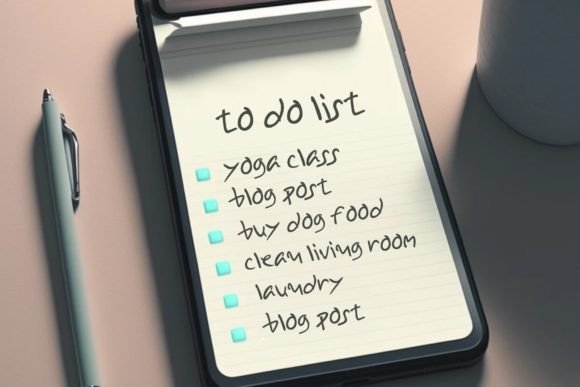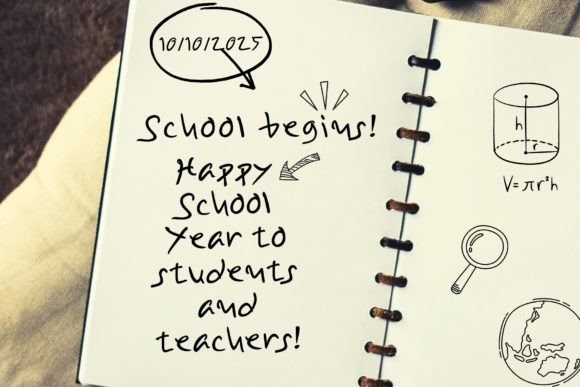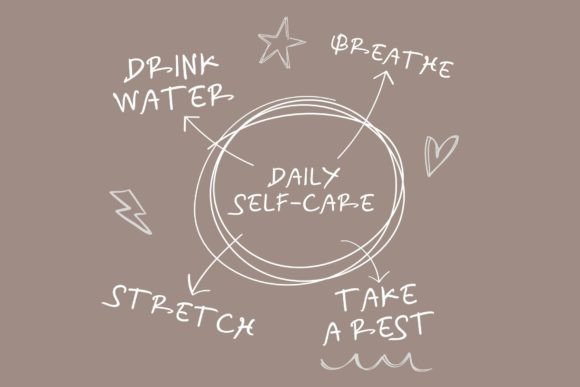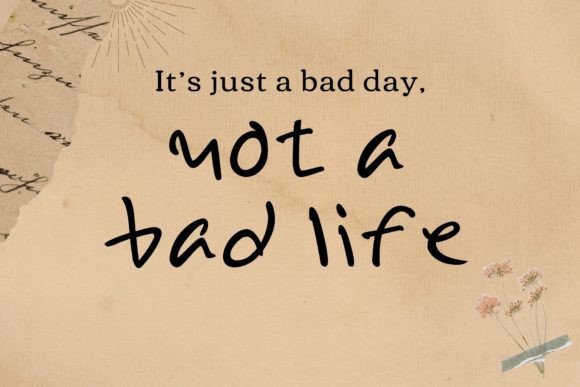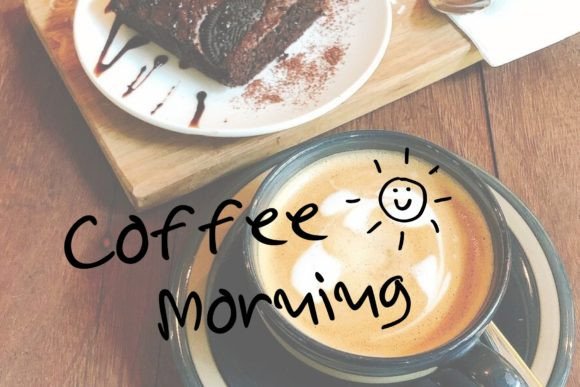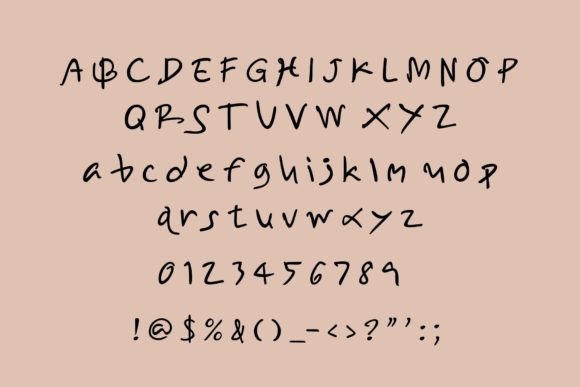
Introduction to Pisanu Font
As a designer, have you ever stared at a blank canvas, waiting for the perfect font to spark your creativity? For many of us, that moment of inspiration comes when we stumble upon a font that perfectly captures the essence of our vision. For those who’ve been searching for that elusive combination of style and sophistication, we’re excited to introduce you to the Pisanu Font – a stunning, handwritten font that’s sure to elevate your next creative project.
With its unique blend of elegance and playfulness, the Pisanu Font is a versatile design resource that can be used for a wide range of applications, from logos and wedding stationery to photography watermarks and modern websites. Whether you’re a seasoned designer or just starting out, this high-quality font is a valuable addition to your toolkit, offering endless possibilities for creative expression.
Key Features of Pisanu Font
- Unique characteristics: elegant, modern, and minimalist design aesthetic
- Perfect for designers, artists, and anyone looking for a versatile and stylish font
Honest Review: Pisanu Font
As a designer, I’m always on the lookout for high-quality design resources to enhance my creative projects. The Pisanu Font is one such resource that caught my attention. With its unique and elegant design, it’s perfect for any project that requires a touch of sophistication.
- ✨ High-quality design: The Pisanu Font is a beautifully crafted font that exudes elegance and sophistication.
- ✨ Transparent background: The font’s transparent background makes it easy to use in any design project, whether it’s a logo, brochure, or website.
- ⚠️ Limited character set: The Pisanu Font has a limited character set, which may not be suitable for projects that require a wide range of characters.
- ⚠️ No bold or italic weights: The font only comes in regular weight, which may not be suitable for projects that require bold or italic text.
Overall, the Pisanu Font is a great addition to any designer’s toolkit. While it may have some limitations, its unique design and high-quality feel make it a valuable resource for any creative project.
Pisanu Font
Design Resource for Your Creative Project
The Pisanu Font is suitable for a wide range of creative projects, including:
- Digital design